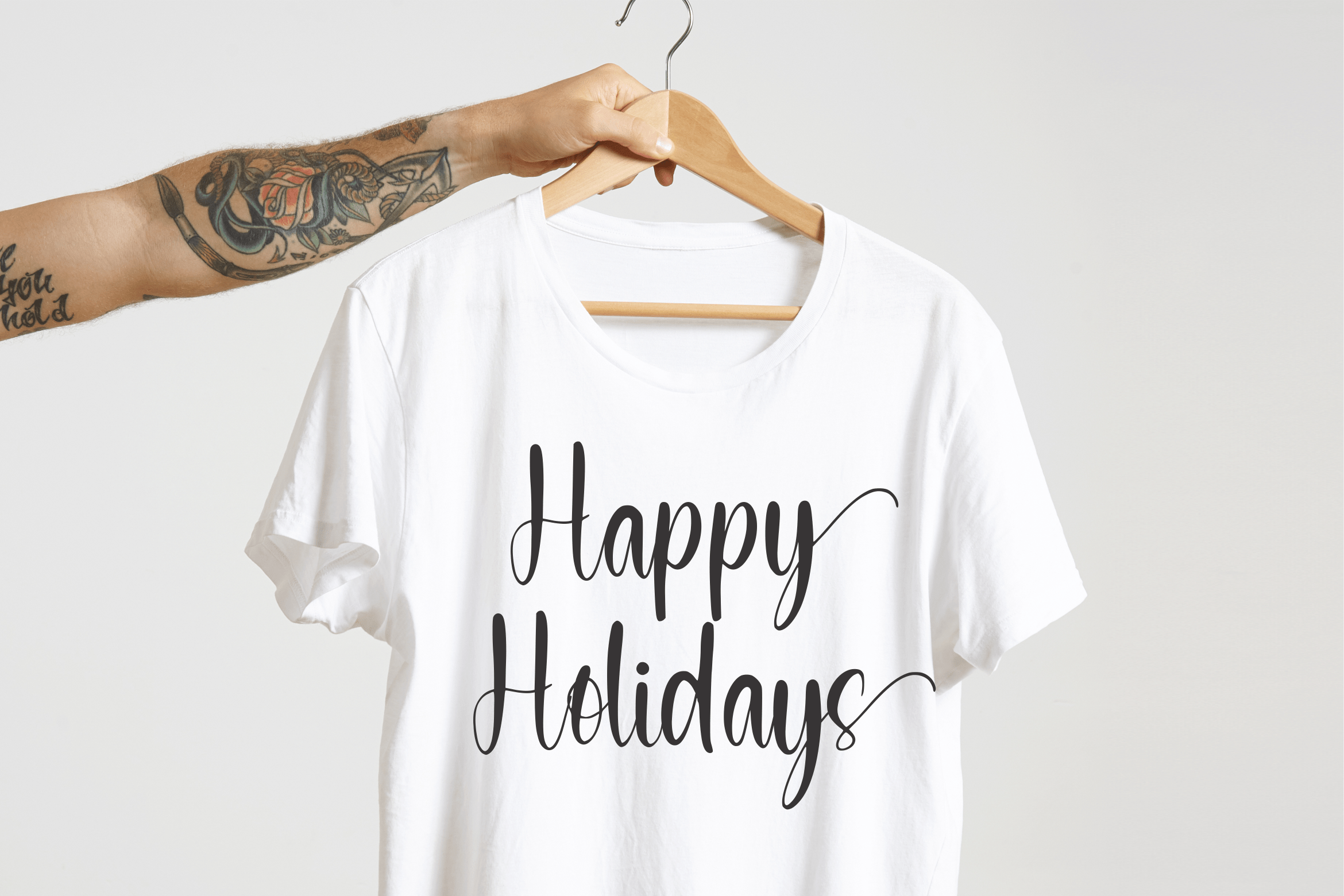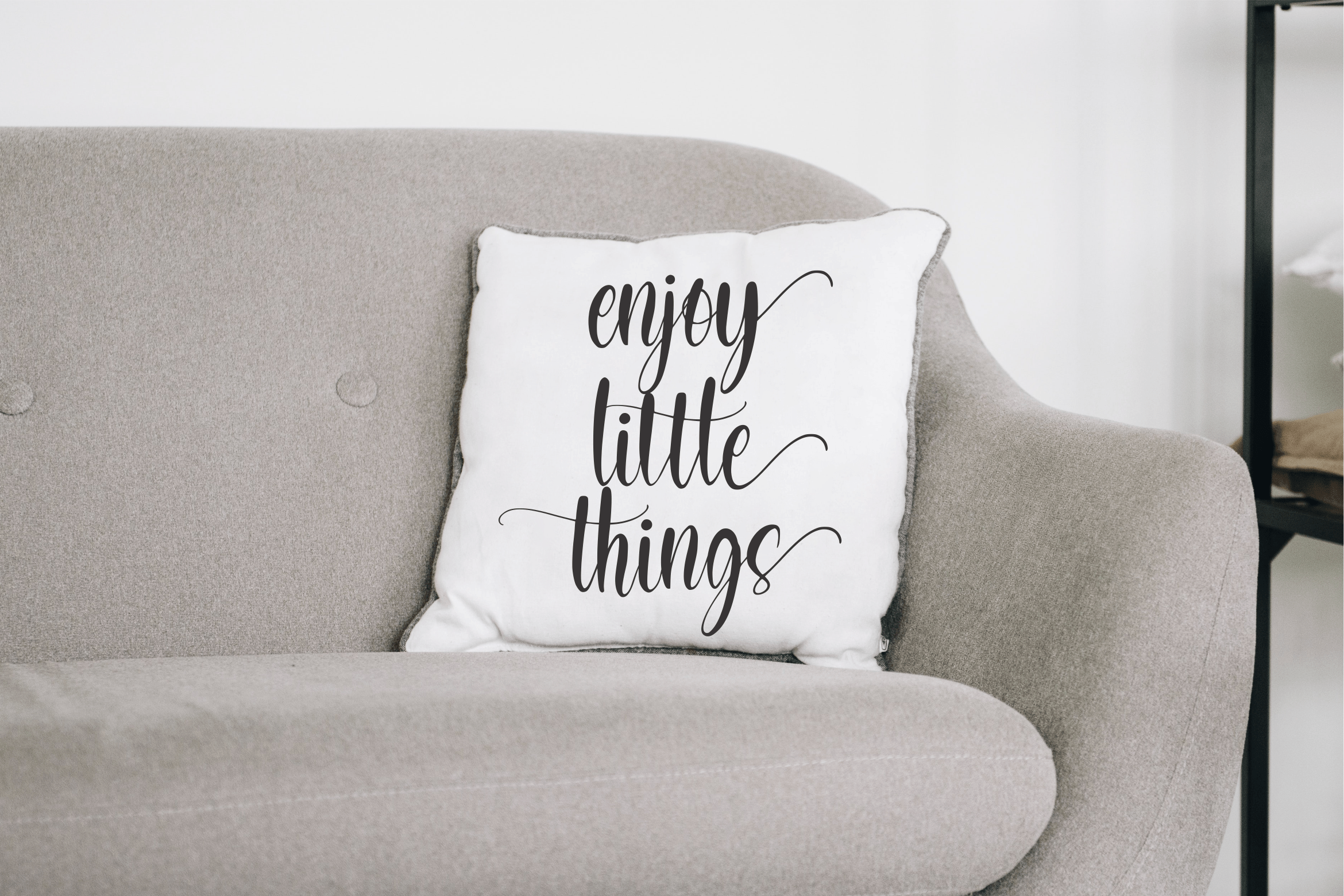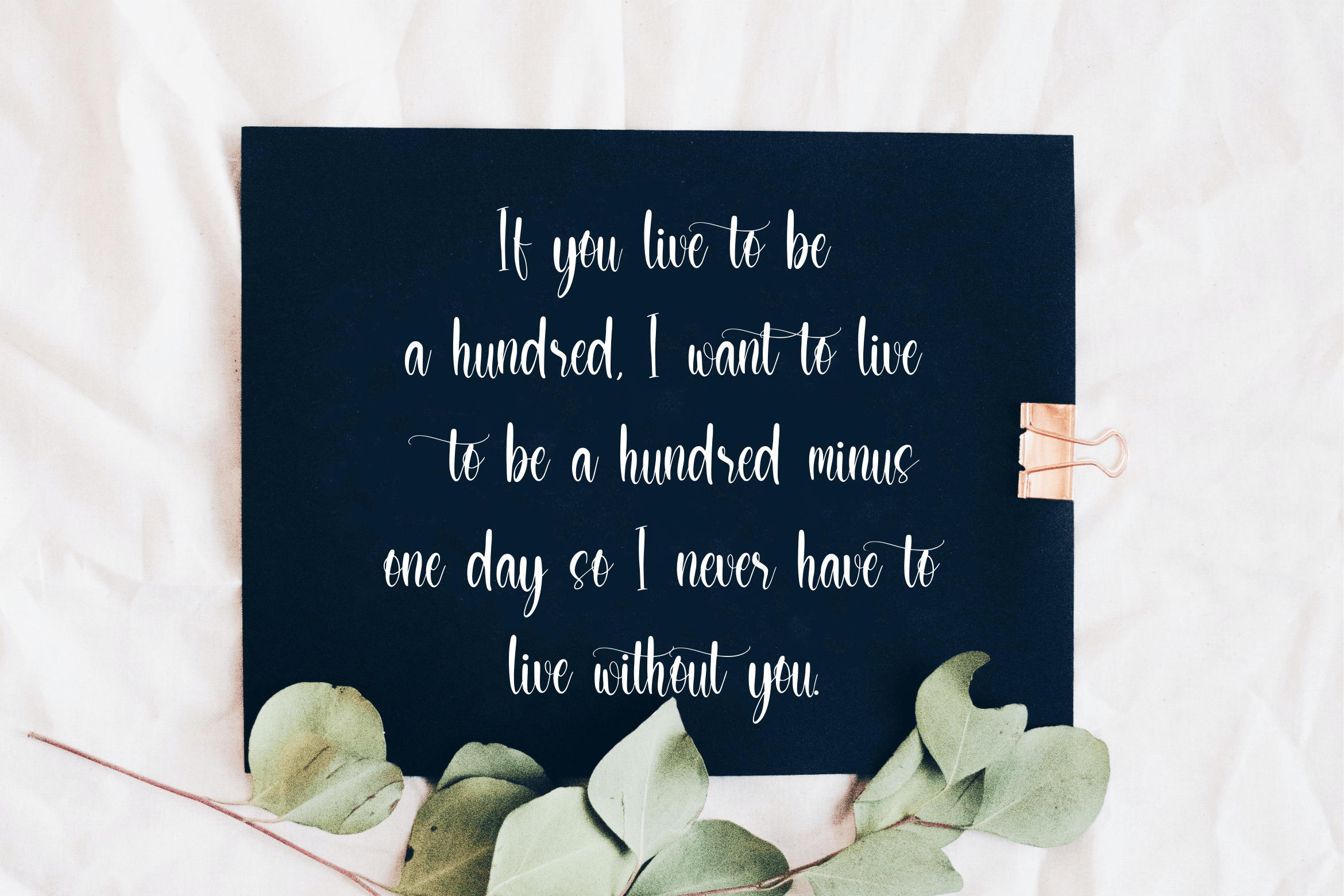
Littlesidney Script Font
This is a Modern Calligraphy Font. Littlesidney is perfect for product packaging, branding project, megazine, social media, wedding, or just used to express words above the background. This font includes OTF, TTF & WOFF, Littlesidney also multilingual support.